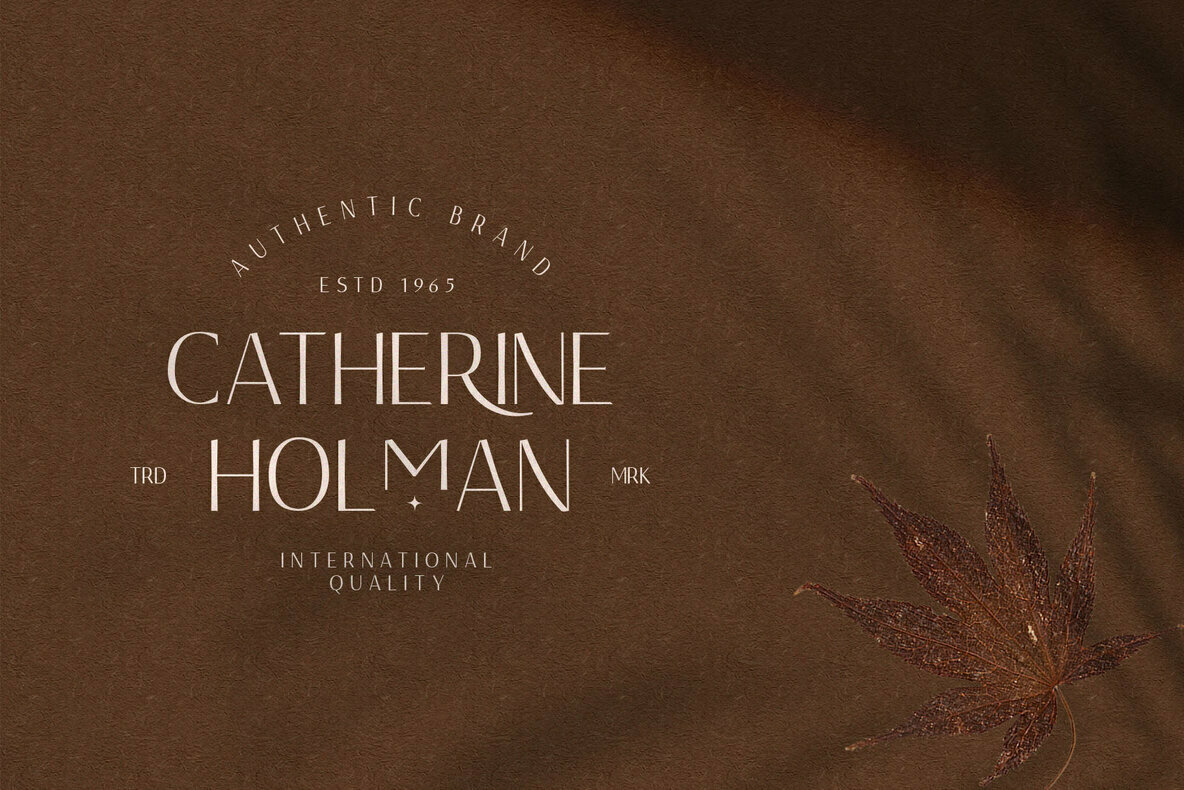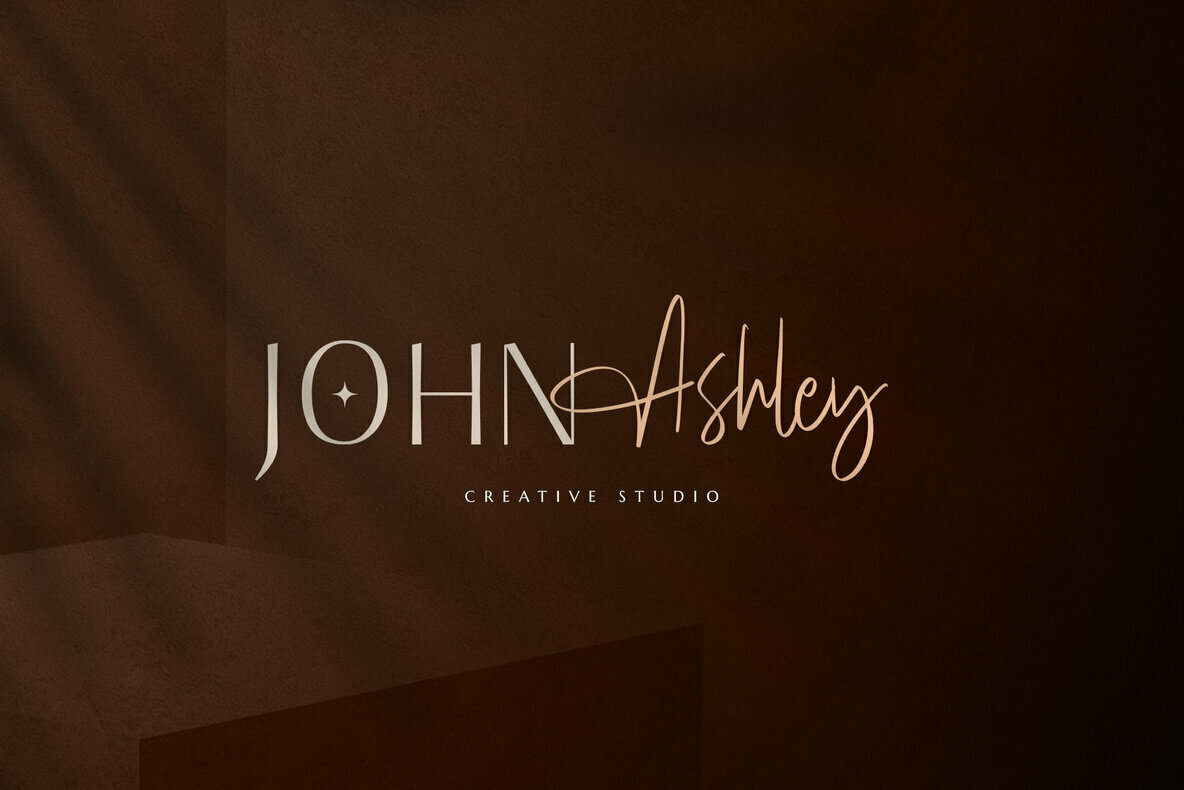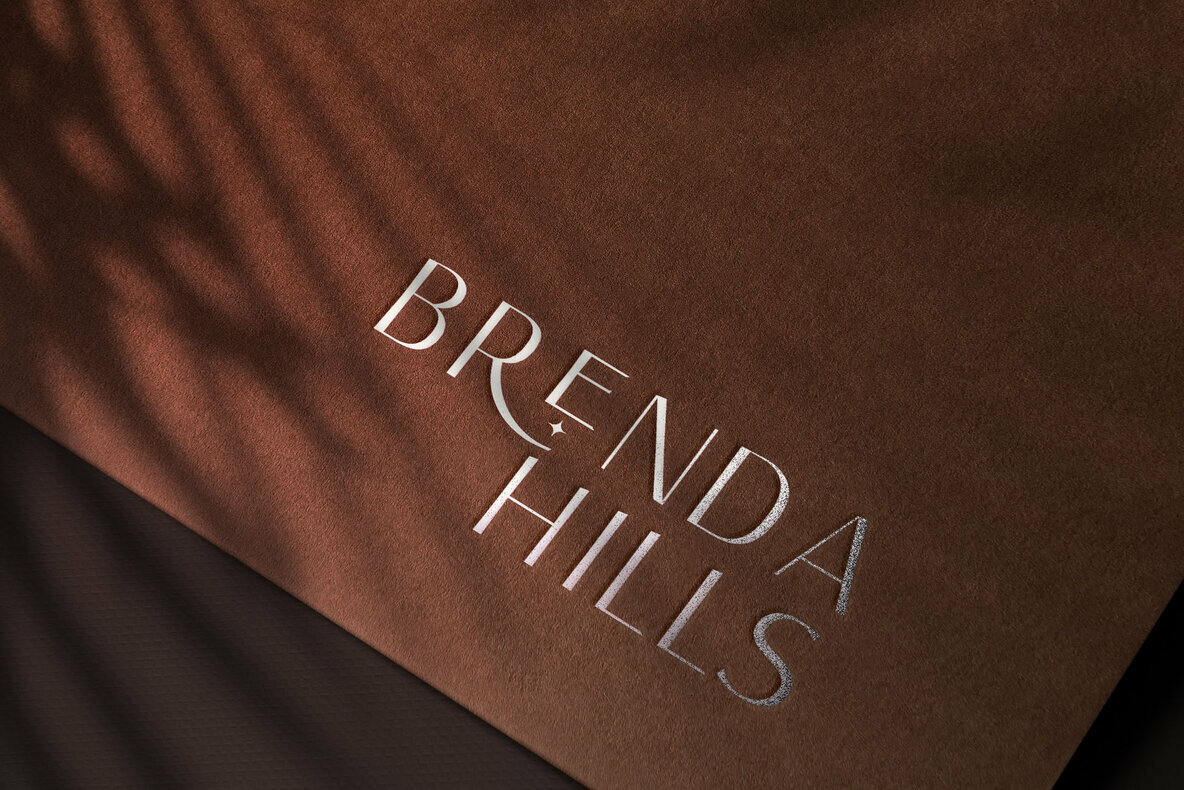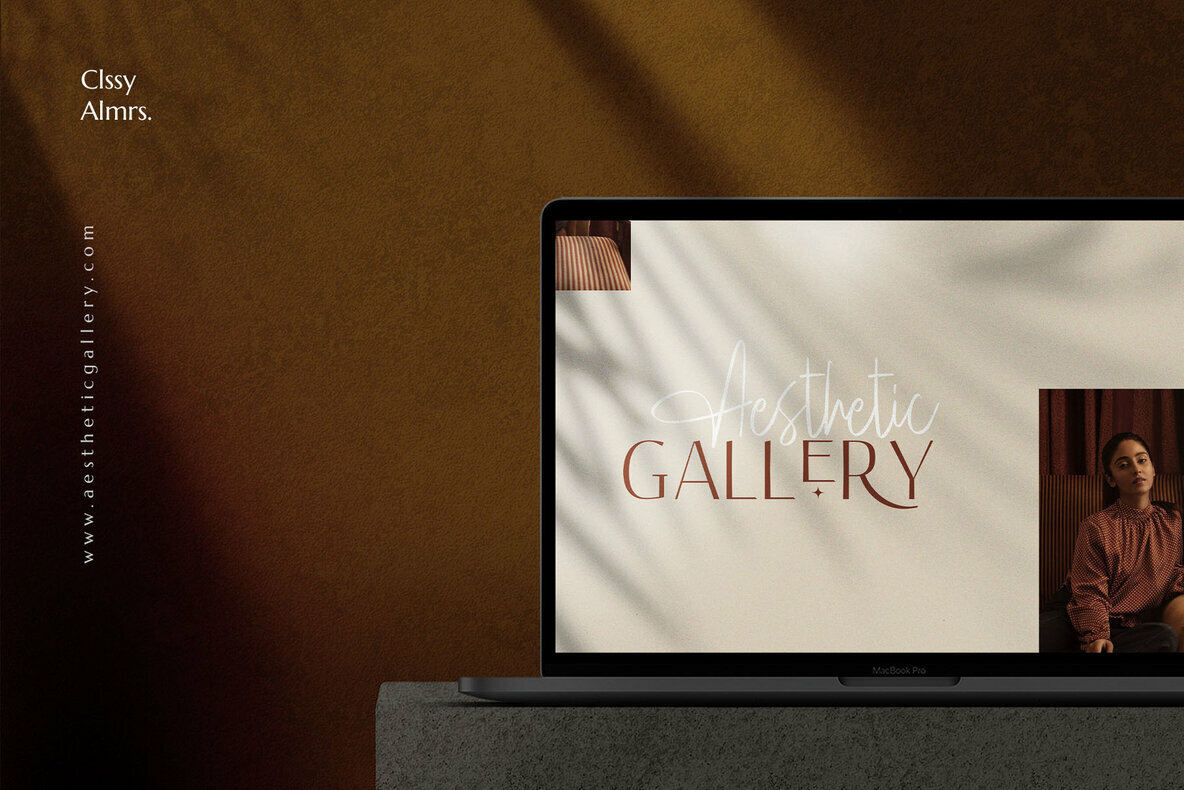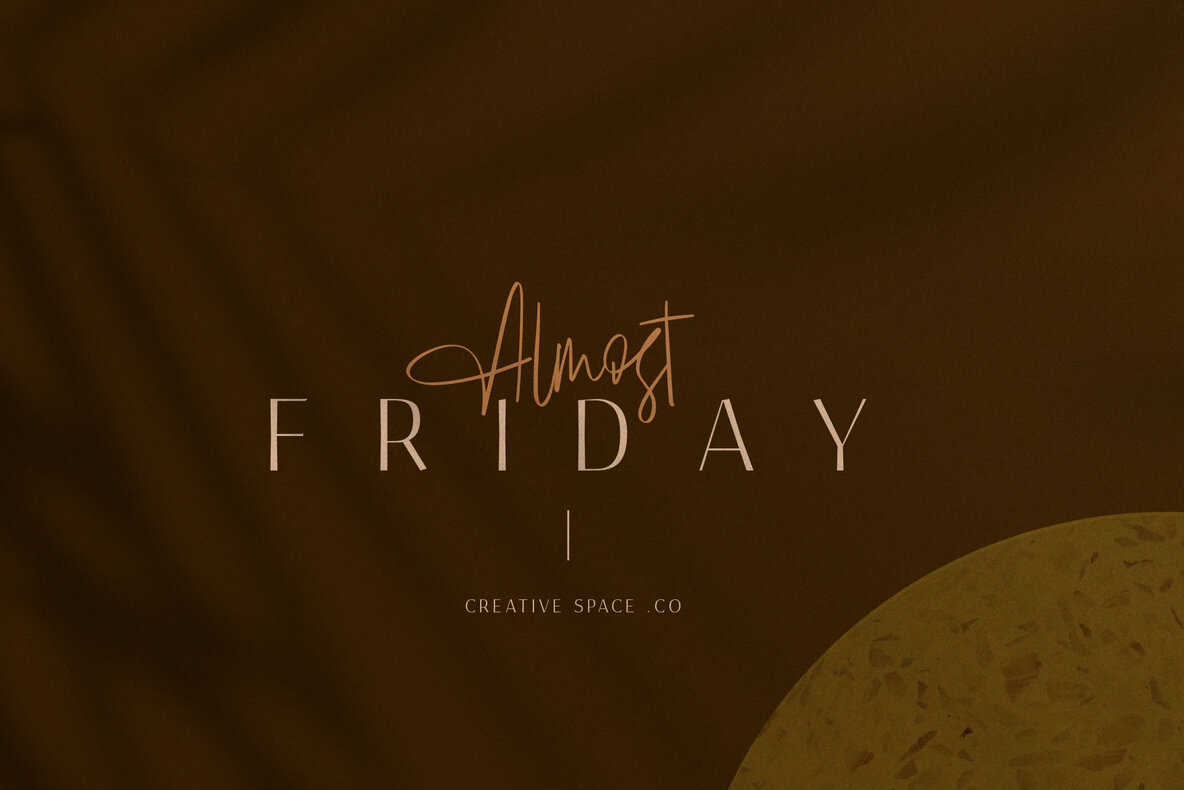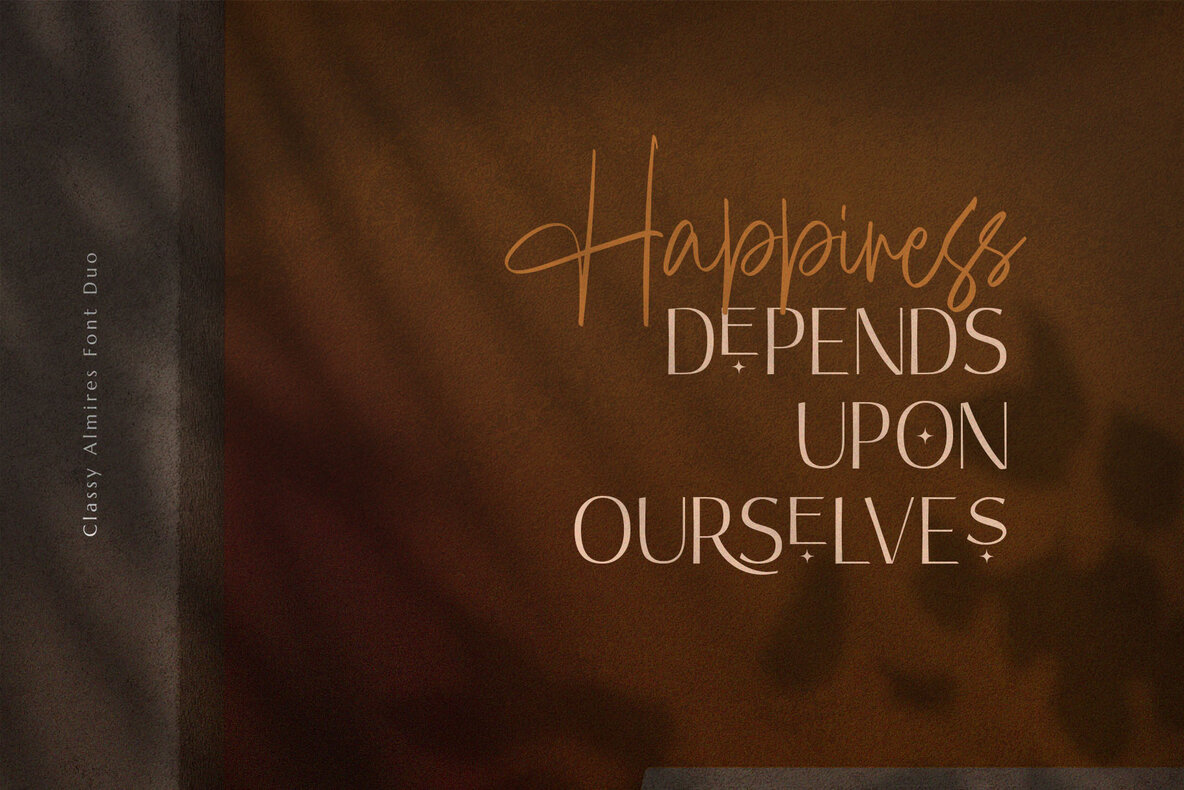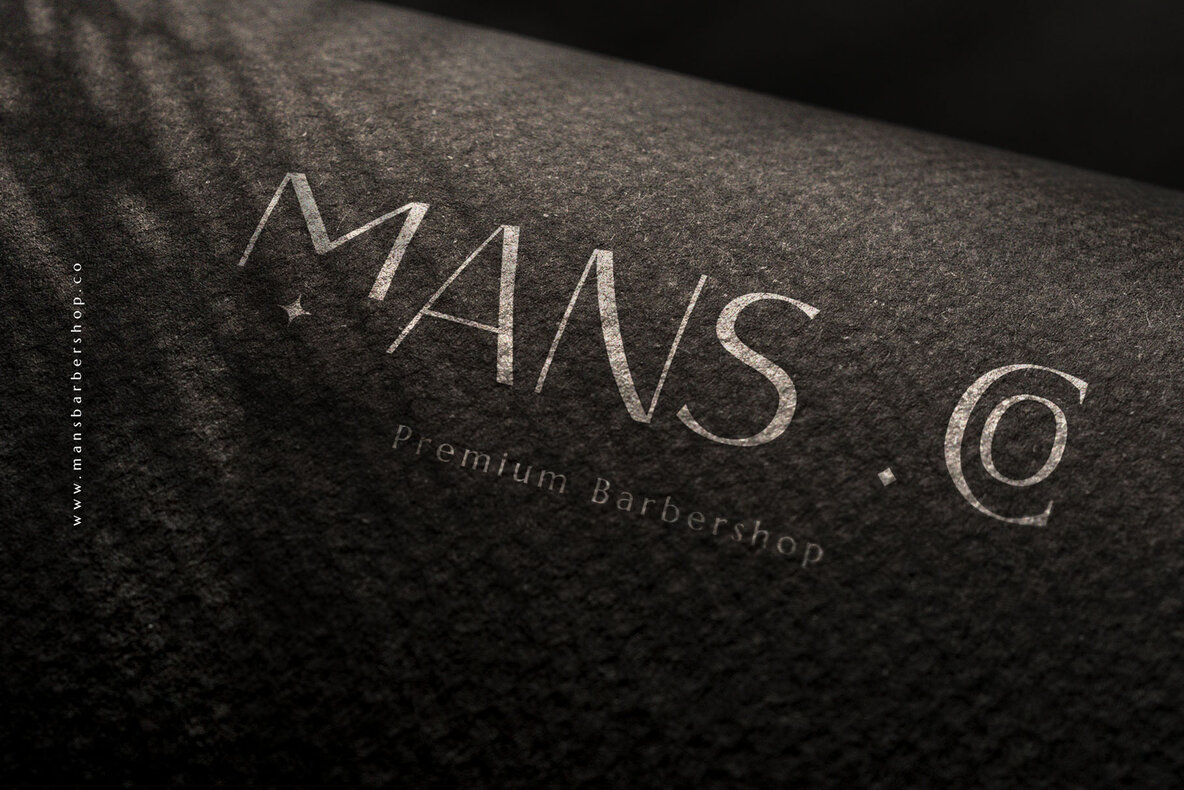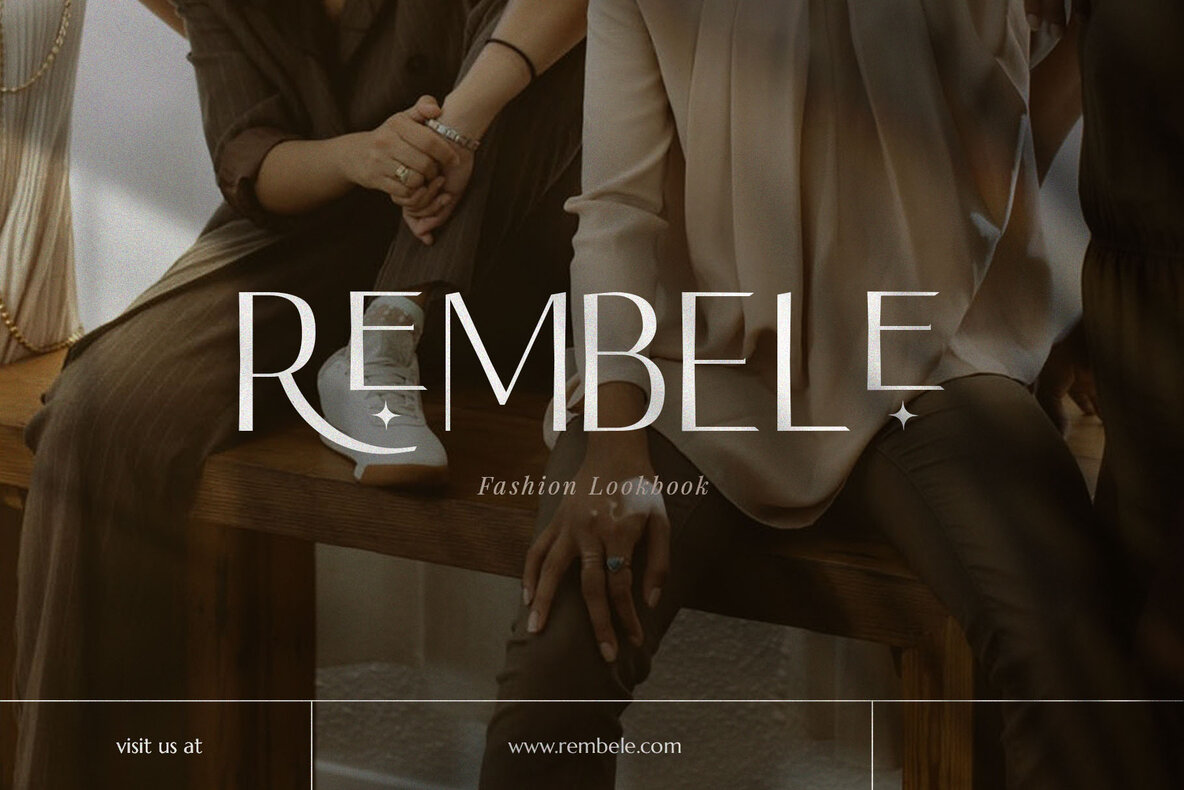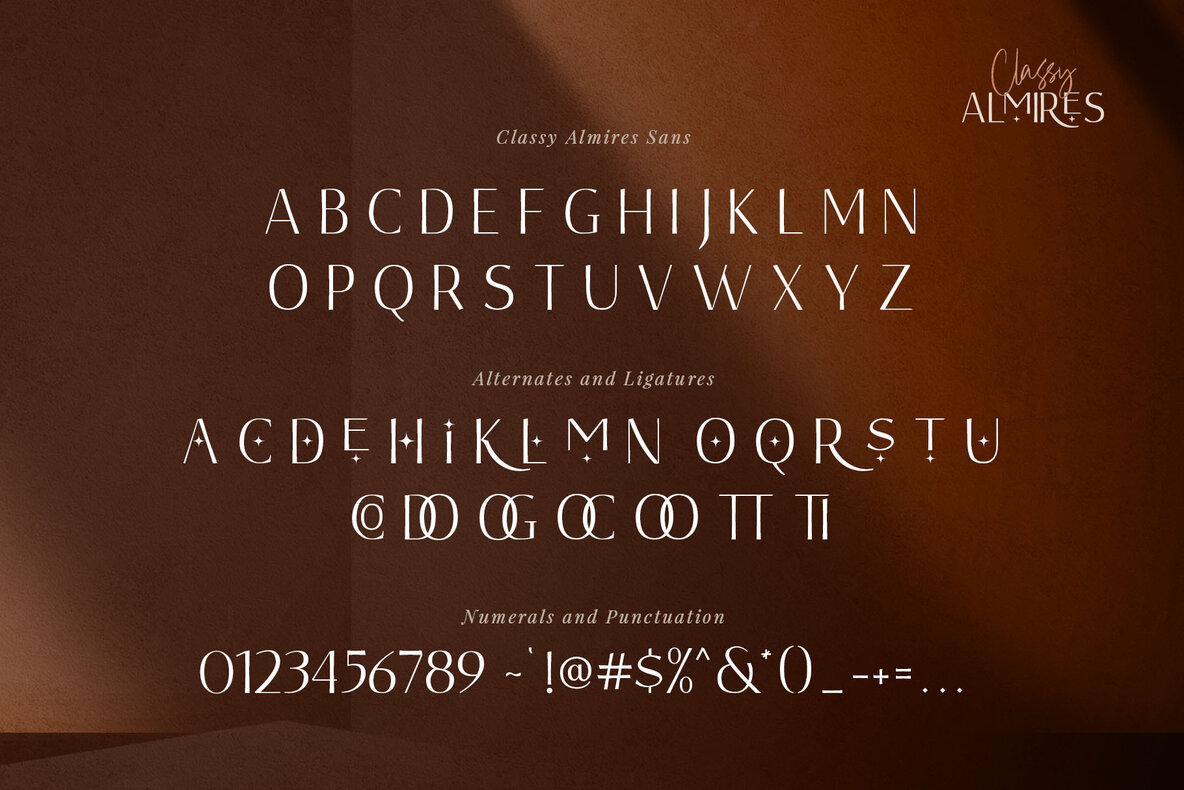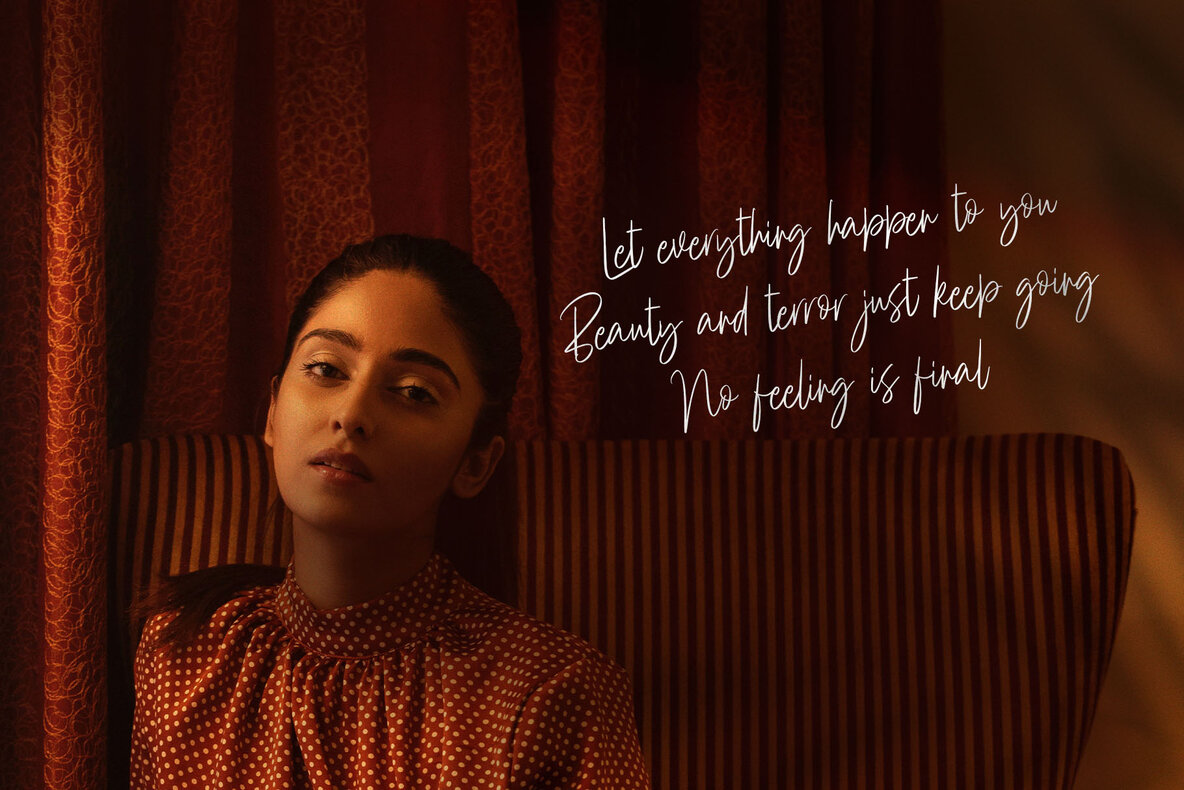
Classy Almires Font Duo
Explore a stunning typography pairing with Classy Almires; a Perfectly balanced set of elegant minimalist sans serif and realistic script typefaces.
Perfect for making bold stylish statements - or adding a touch of class to your designs like for branding, logos, invitation, mastheads, and more.
The script has a multitude of natural-looking ligatures in its OpenType features - making the font look as close to natural handwriting as possible.
Classy Almires Features:
- Hundreds of glyphs
- Alternates and Ligatures
- Numbers & Punctuation